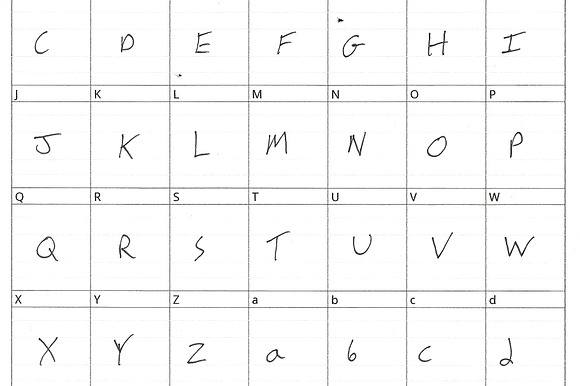
Legible Doctor Font
Custom handwritten font.
Why Legible Doctor Font is worth a look
Legible Doctor Font by Jordan Scott Media fits naturally into Branding, posters, packaging, typography.